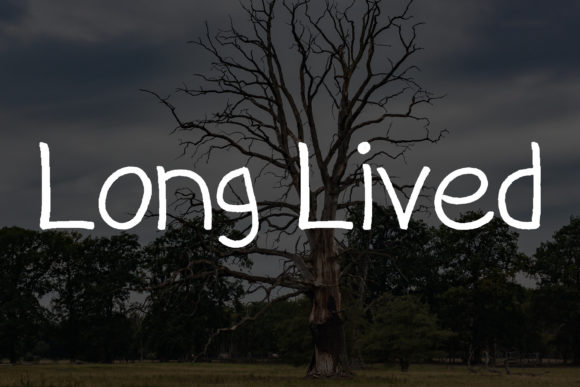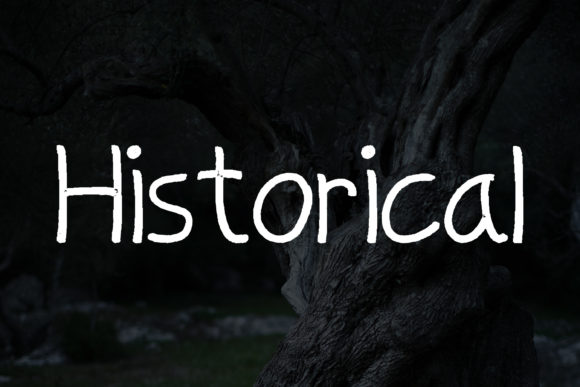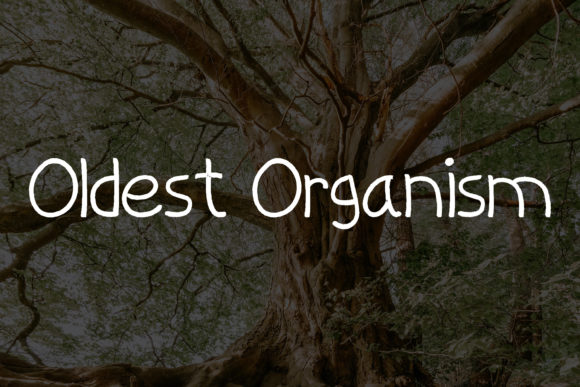
Introduction to Old Tree Font
Old Tree is a simple and adaptable handwritten font.
No matter the topic, this font will be an incredibly asset to your fonts’ library, as it has the potential to elevate any creation .
Key Features of Old Tree Font
Why Choose Old Tree Font?
Old Tree Font offers exceptional quality and versatility, making it a valuable addition to your design toolkit. Whether you’re creating for personal projects or commercial use, Old Tree Font delivers professional results.